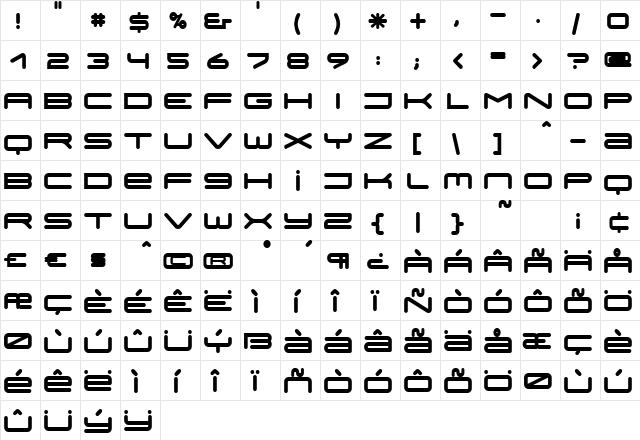
Rung Bold
Design Context for Rung Typeface
Rung is a composed and adaptable typeface that performs quietly and consistently across a wide range of design contexts. Its bold stroke weight gives it real presence on the page.